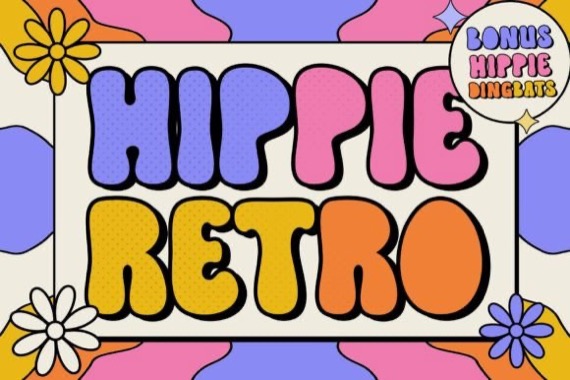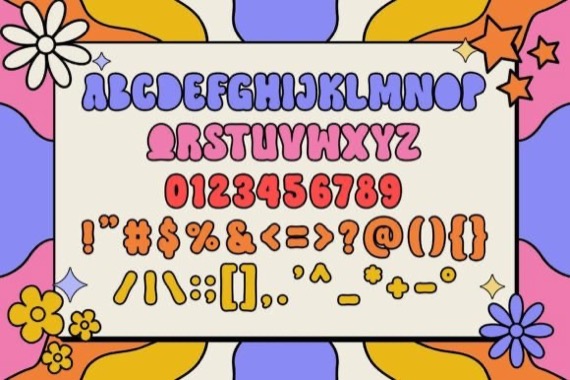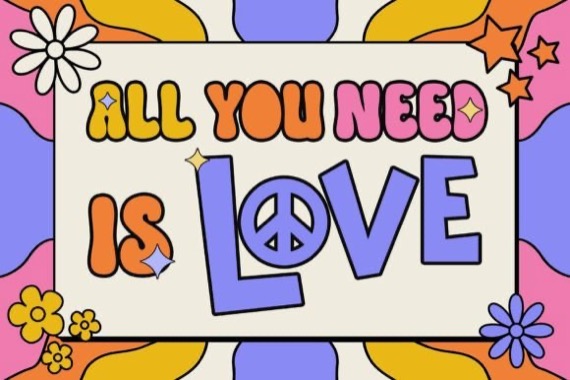
Vintage Avocado is a modern and classic Groovy Display Font that was created and shared by Hoperative Design. This font is perfect for creating t-shirts, stickers, cover books, children’s books, social media posts, and much more!
Hippie Retro Display Font
Designer, Publisher: Hoperative Design